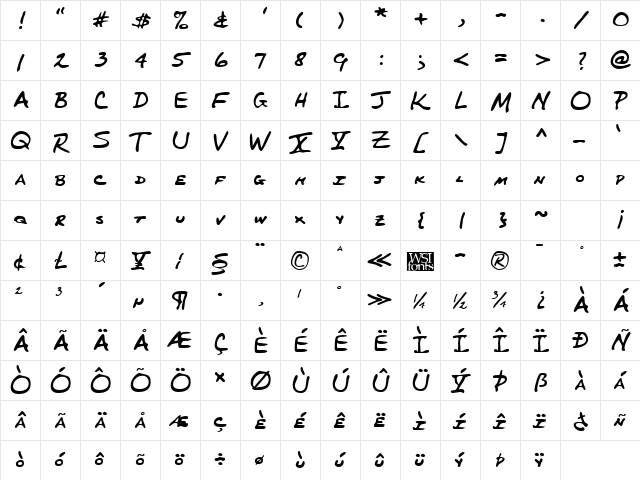
PerkinsHand Regular
Design Context for PerkinsHand Typeface
PerkinsHand flows with the natural rhythm of handwritten lettering, making it ideal for designs that call for warmth and personal expression.
Font Pairing: Combine PerkinsHand with a simple geometric sans for maximum contrast — the tension between flowing curves and clean structure is a classic typographic pairing.
Pro Tip: Use PerkinsHand for short runs of text — names, titles, or taglines. Extended body copy in script faces tires the eye quickly.